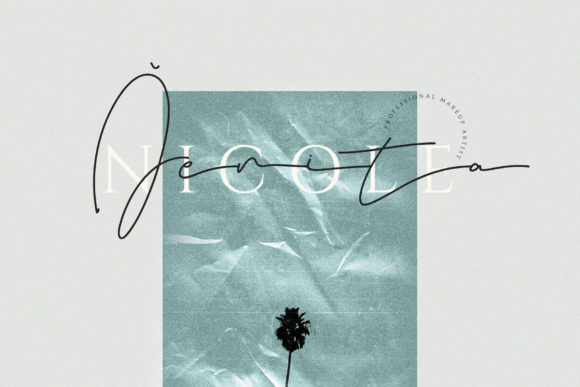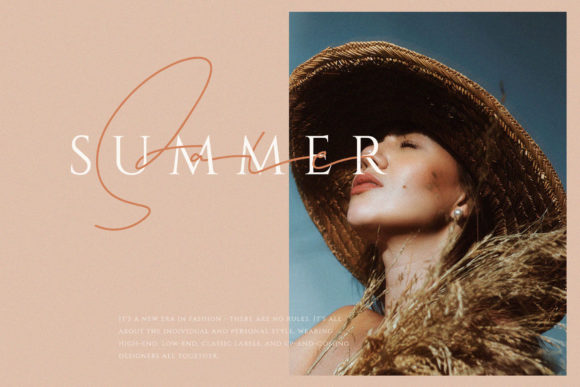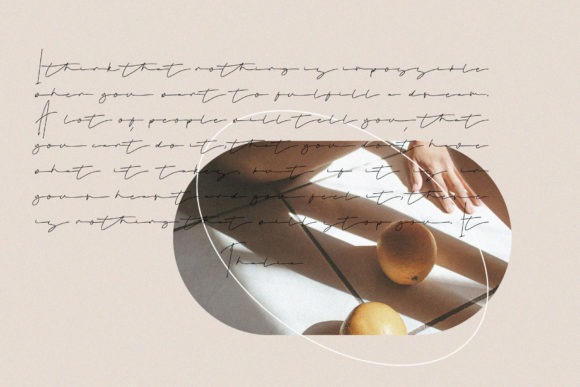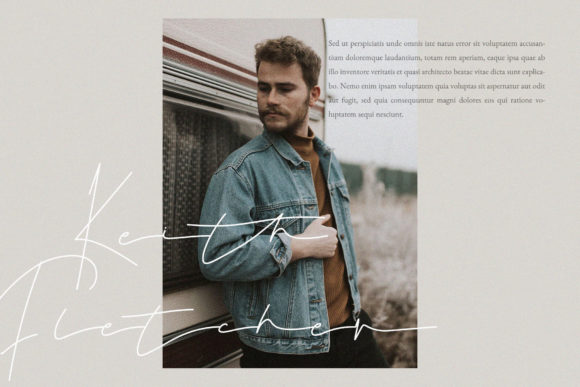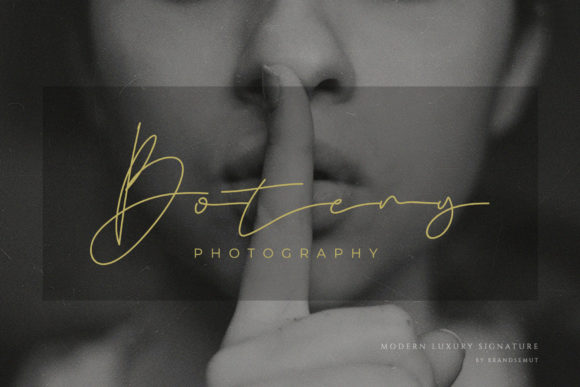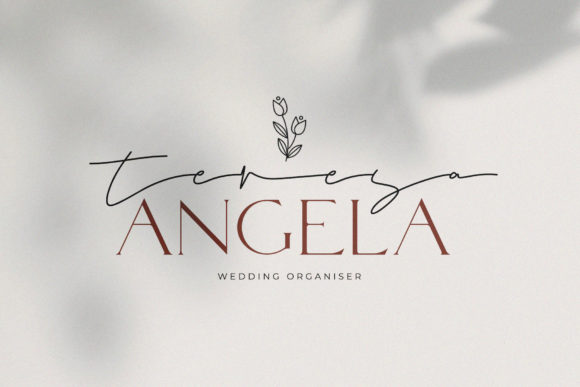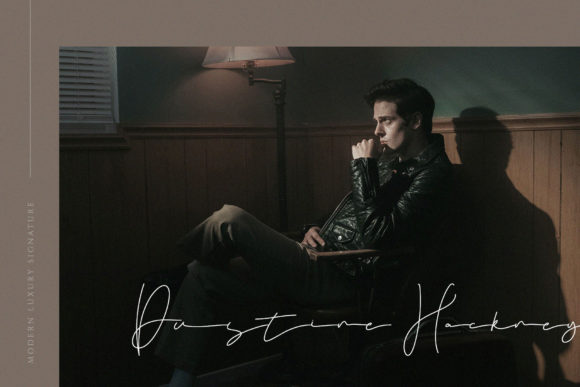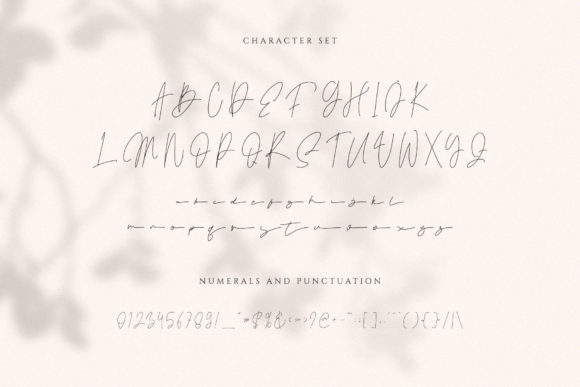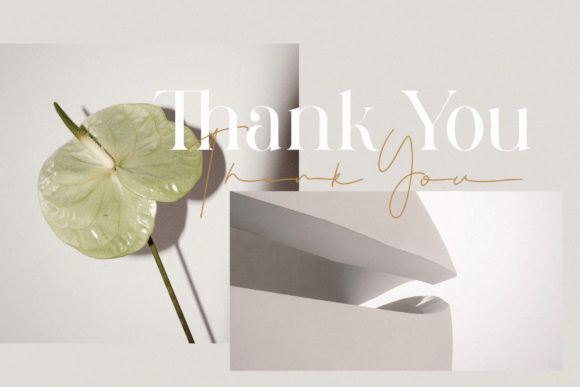
Sintha Moqen Font
About Sintha Moqen Font
Introducing “Sintha Moqen,” a fashionable and thin lettered script font that exudes class, elegance, and modernity. This font is designed to make a statement and add a touch of sophistication to your projects, whether it’s for logos, branding, invitations, stationery, wedding designs, social media posts, or any other creative endeavor.
Sintha Moqen’s thin and delicate letterforms give it a refined and stylish appearance. The clean and elegant lines of each character create a sense of harmony and balance. This font’s slim design adds a contemporary and modern touch, making it perfect for projects that require a sleek and sophisticated look.
Versatility is one of Sintha Moqen’s strengths. It can adapt to various design styles and themes, complementing both minimalist and ornate aesthetics. Whether you’re aiming for a clean and minimalistic logo or an elaborate wedding invitation, Sintha Moqen will elevate your design and convey a sense of elegance.
This font’s legibility and readability ensure that your message is communicated effectively. Even with its thin letterforms, Sintha Moqen remains clear and easy to read, making it suitable for a wide range of applications. Whether used in small or large sizes, this font retains its visual impact and ensures your designs are visually pleasing.
Sintha Moqen is designed with attention to detail, with carefully crafted letterforms and refined curves. Its modern and chic style will give your projects a professional and polished appearance. It’s a font that makes a statement while maintaining a sense of subtlety and refinement.
In summary, Sintha Moqen is a fashionable and thin lettered script font that brings a classy, elegant, and modern look to your designs. With its versatility and legibility, it’s perfect for various design applications, from logos and branding to invitations and social media posts. Add a touch of sophistication to your projects with Sintha Moqen and let your creativity shine.